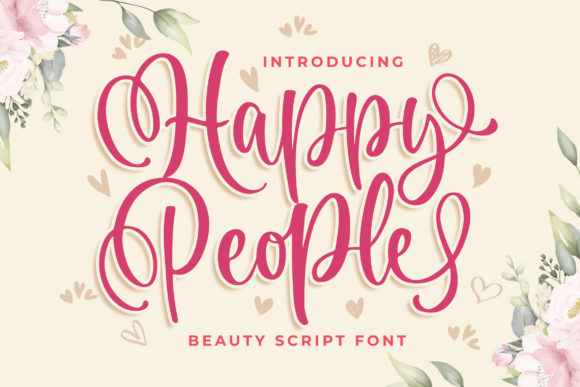
Journey into a world of enchanting beauty and joyous creativity with Happy People Font, a script font family crafted to bring life to your designs. Experience the elegance of flowing letters, each stroke imbued with a charm that captivates and inspires.
Step into the realm of cursive artistry with Happy People Font, the perfect companion for teachers, students, and design enthusiasts alike. Its graceful lines and playful spirit make it an ideal choice for teaching the art of cursive writing, allowing both educators and learners to embrace the beauty of this classic script.
Beyond the classroom, Happy People Font blossoms into a versatile tool for a myriad of creative projects. Its understated elegance adds a touch of sophistication to wedding invitations, thank-you cards, and greeting cards, transforming them into cherished keepsakes that reflect the heartfelt emotions they convey.
Unleash your creativity and let Happy People Font guide you through a universe of design possibilities. Create logos that exude personality and charm, branding materials that leave a lasting impression, and social media posts that capture the attention of your audience. Its versatility knows no bounds, allowing you to weave magic into every aspect of your visual communication.
Happy People Font is more than just a collection of characters; it's an invitation to explore the depths of your imagination and bring joy to the world through your designs. Its whimsical nature invites you to play with colors, textures, and compositions, creating masterpieces that resonate with happiness and positivity.
Embrace the enchanting world of Happy People Font and let your creativity soar. Discover the boundless possibilities that await you as you immerse yourself in the beauty of this extraordinary script.